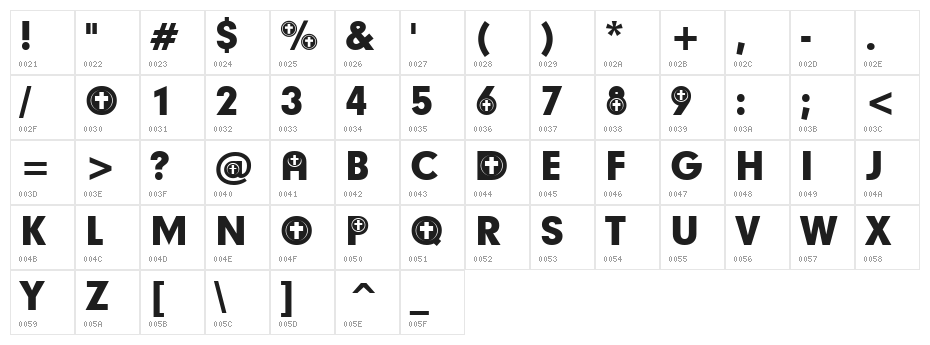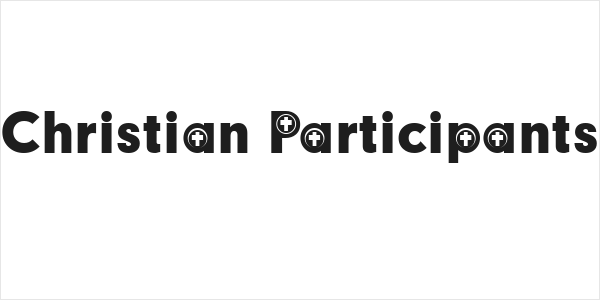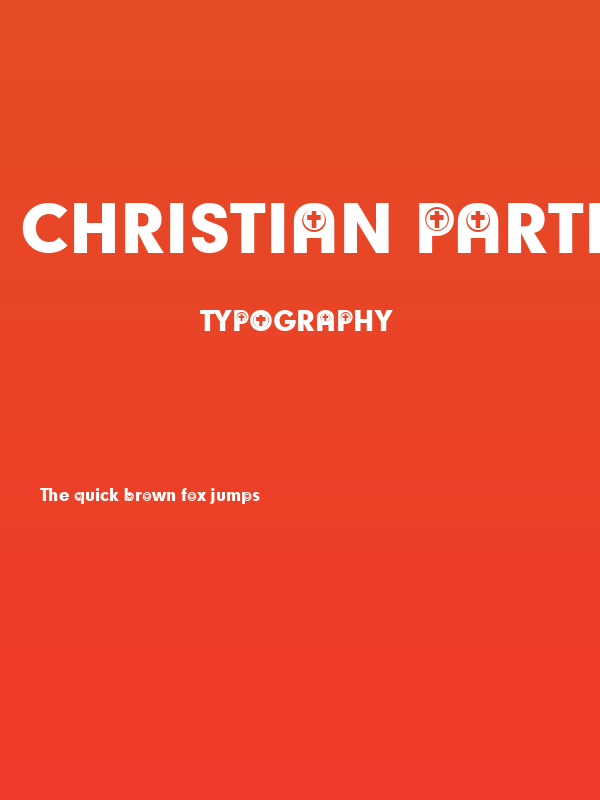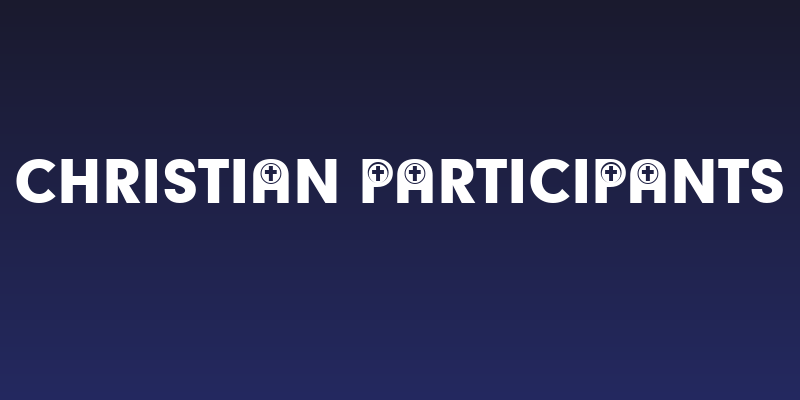
Christian Participants Font
Christian Participants Description
This bold and striking font features a unique design element where the letter 'O' is replaced with a circle containing a cross, adding a distinct religious or spiritual theme. The characters are sans-serif with a modern, geometric style, offering a clean and impactful appearance. The uppercase and lowercase letters maintain consistent weight and width, ensuring readability and uniformity. Numbers and special characters are included, with the cross motif also appearing in the zero. This font's boldness and unique design make it suitable for attention-grabbing headlines or thematic projects.
| Proposed Projects | Ideal for church branding, religious event posters, spiritual book covers, or any project needing a bold, thematic typeface. |